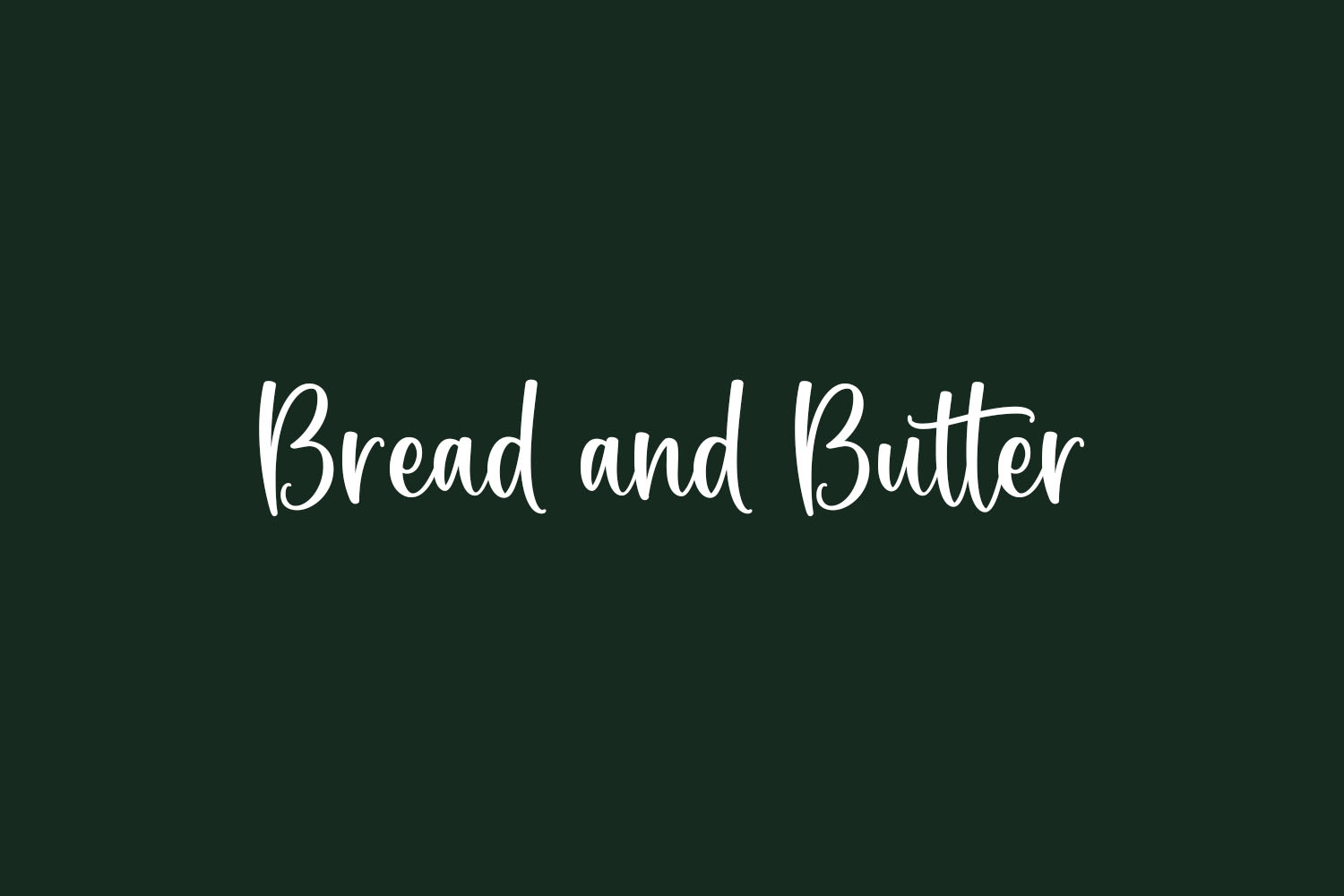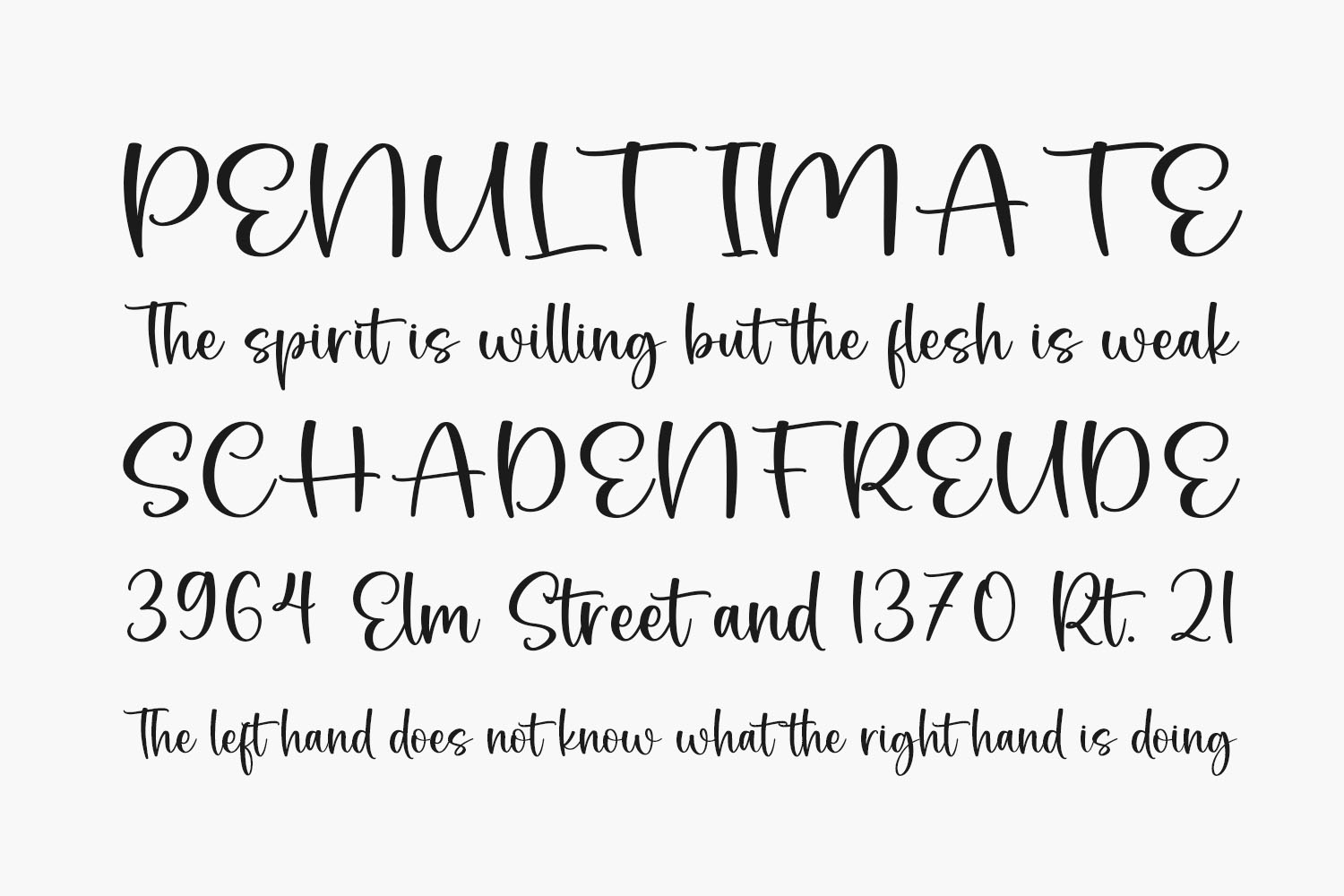
Bread and Butter Free Font is a dynamic pair of fonts featuring a harmonious blend of script and sans styles. Whether used together or individually, these fonts are crafted to seamlessly complement each other, offering a stylish and upbeat flair to enhance your creative projects. Elevate your crafts with the perfect combination of chic and cheer. Bread and Butter Free Font is free for personal use only. Please purchase the full version for commercial use.